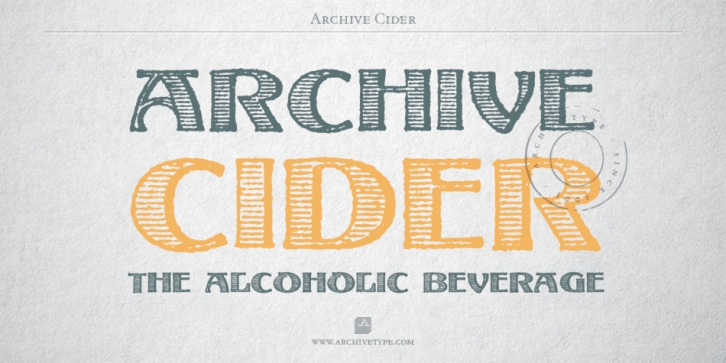
Archive Cider is a display and art nouveau font published by ArchiveType.
Archive display typefaces are reproduced as they appeared in print. In order to preserve the original feel of typefaces, no additional characters were added to originals therefore most of fonts consist just of basic character set. Upper case letters, lower case letters, numerals and basic punctuation.